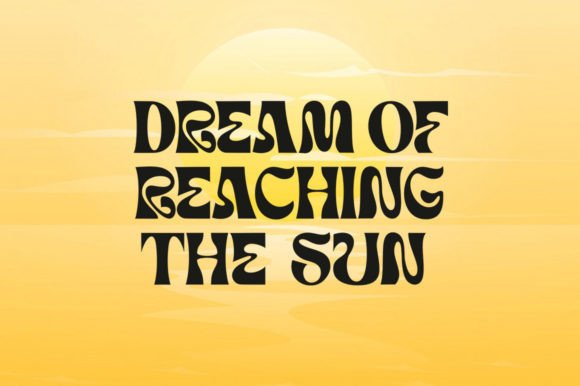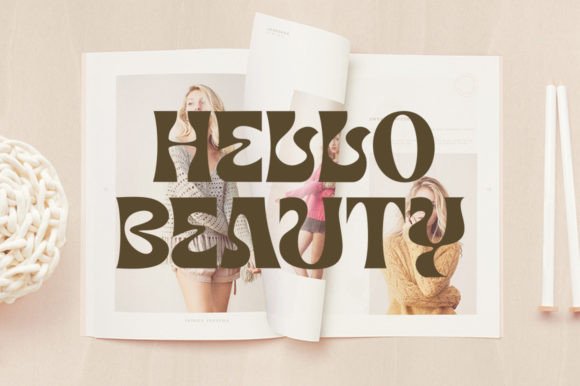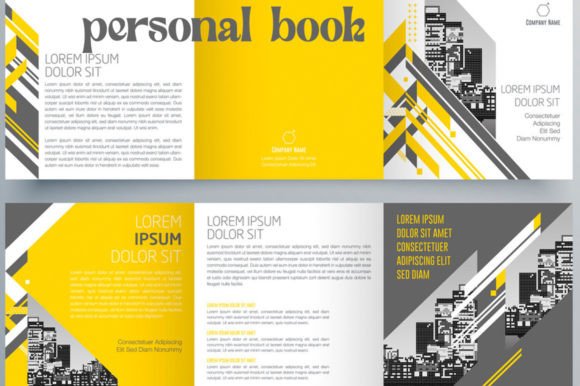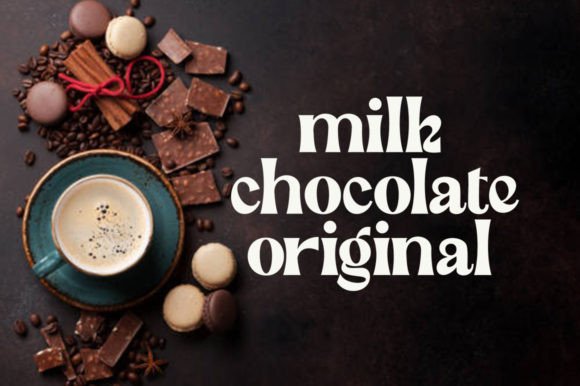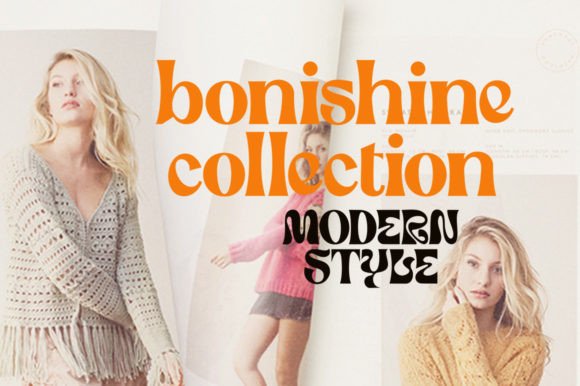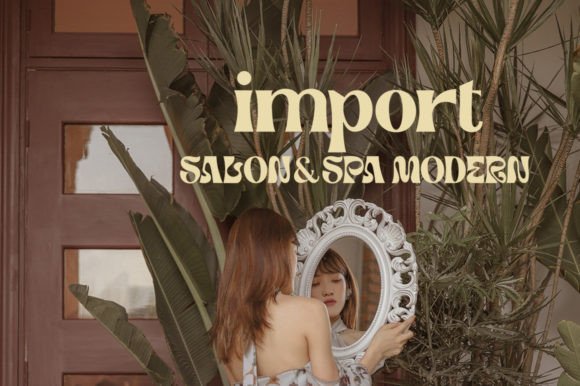
Introduction to Magnoles Font
Do you remember that moment when you finally found the perfect design element for your creative project? The one that brings everything together and makes it truly unique? For many designers, that moment comes when they discover a font that perfectly captures the essence of their vision. For those who have been searching for that special something, we’re excited to introduce the Magnoles Font, a retro-inspired masterpiece that will elevate any design to new heights.
As a valuable resource for designers, the Magnoles Font offers a distinctive aesthetic that sets it apart from other fonts. Its unique characters are the perfect addition to any creative project, from web designs to print materials, and can be easily customized to fit your design needs. With a transparent background and high-quality design, the Magnoles Font is a free download that’s sure to become a go-to design resource.
Key Features of Magnoles Font
- High-quality font with a transparent background, perfect for creative projects that require a clean and minimalist design.
- Unique characteristic: Magnoles Font features a unique blend of modern and elegant styles, making it perfect for creative projects that require a touch of sophistication.
- Perfect for use in logos, headings, and body text, Magnoles Font is a versatile design resource that can elevate any creative project.
Honest Review: Magnoles Font
I recently had the opportunity to work with the Magnoles Font, and I must say it’s been a game-changer for my creative projects. This font is a great addition to any designer’s toolbox, offering a unique and elegant style that’s perfect for a variety of applications.
- ✨ Beautiful, high-quality design: The Magnoles Font is incredibly well-crafted, with each letter and symbol carefully designed to create a cohesive and visually appealing look.
- ⚠️ Limited character set: While the Magnoles Font is well-designed, its character set is somewhat limited, which may make it less suitable for projects that require a wide range of characters.
- ⚠️ Not ideal for small text: Due to its elegant design, the Magnoles Font may not be the best choice for small text, as it can be difficult to read at very small sizes.
Overall, I’m really impressed with the Magnoles Font. It’s a high-quality design resource that’s perfect for a variety of creative projects. With its beautiful design and transparent background, it’s a great choice for designers looking to add some elegance to their work. Just be aware of its limitations, and you’ll be all set to create some amazing designs with this fantastic font.
Common Use Cases for Magnoles Font
The Magnoles Font is ideal for creative projects, such as logos, business cards, and brochures. Its high-quality design and transparent background feature make it perfect for overlaying text on images.
Is the Magnoles Font suitable for large-scale designs?
Yes, the Magnoles Font is designed to be scalable, making it perfect for large-scale designs. Its high-quality vector format ensures that the font remains crisp and clear even at high resolutions. This makes it ideal for use in signage, billboards, and other large-format designs.